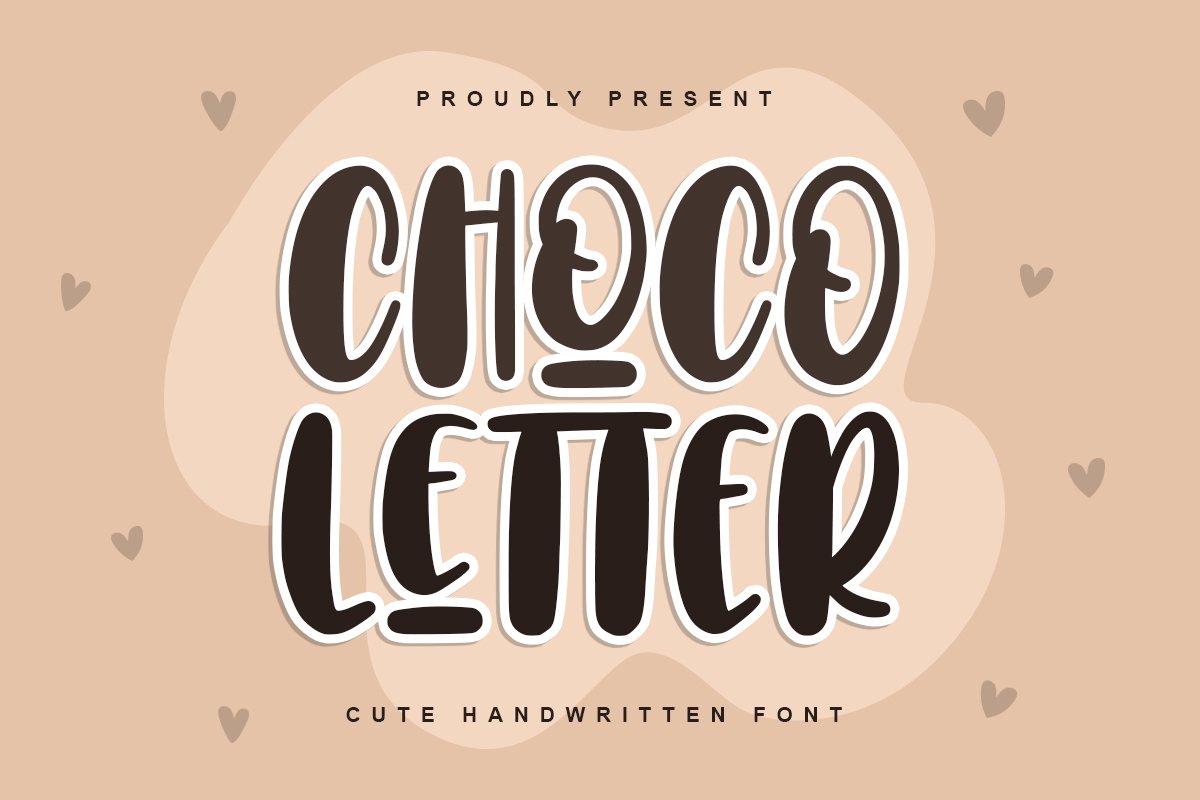
Choco Letters | Handwritten Font
Choco Letter
Choco Letter is a sweet handwritten font. It features an incredibly classic style, while still keeping a friendly feel. Choco Letter is the perfect font for making original and outstanding designs.